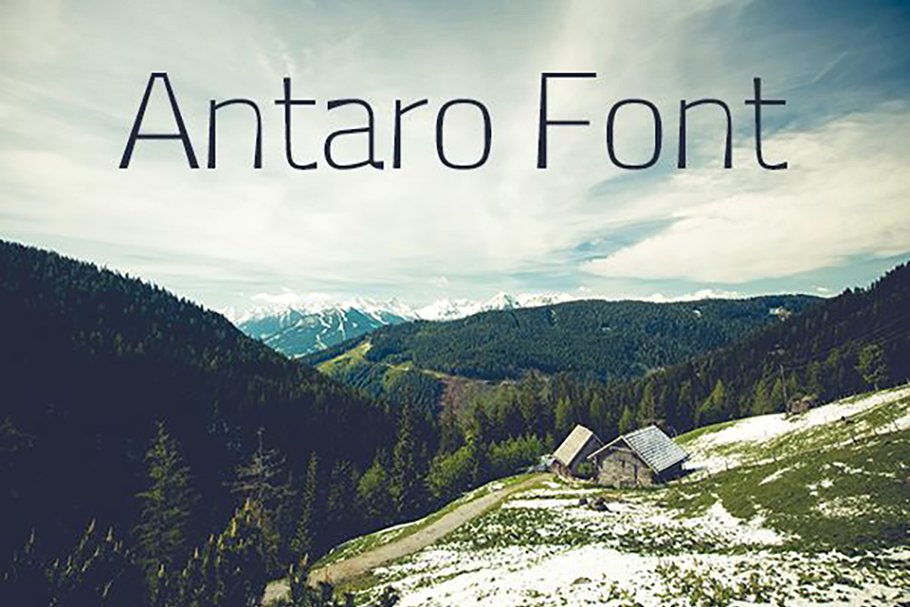
• Ideal for logos, headers, invitations, branding, and web layouts
Antaro Font
Antaro Font is a beautiful, handwritten, free commercial font that helps you add uniqueness and detail to your designs.
Combine this font with displays, logos, headers, wedding invitations, save-the-date cards, titles, web layouts, branding, and more.